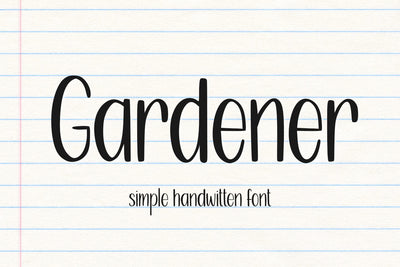
Gardener
introducing
GARDENER
- simple handwritten font-
GARDENER is handwritten sans serif.
It is great for quotes, notes, logos, t-shirt designs, tote bag designs, cards, banners, social media, and more.